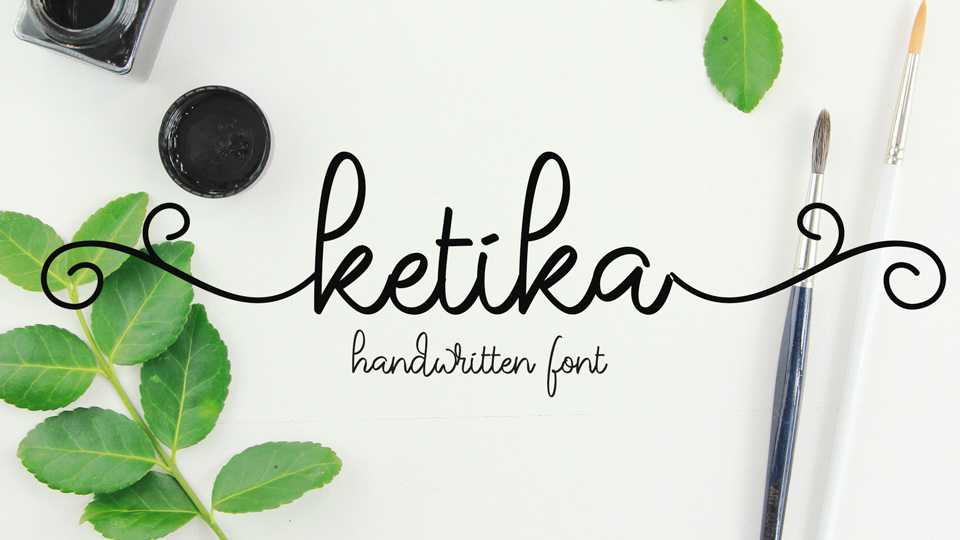
Download Ketika font, a lovely handwritten script with a pretty swashes. Great for wedding decoration, cards, letters, social media, quotes and more.